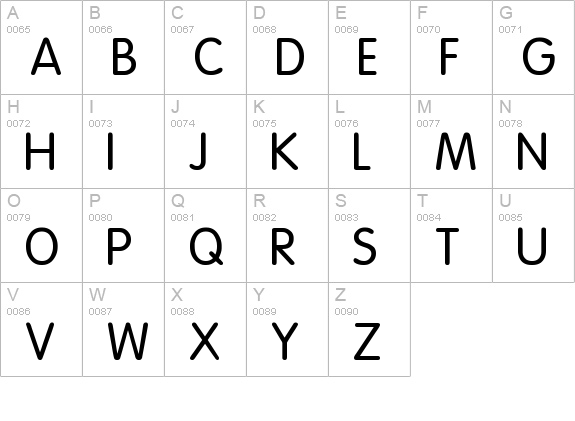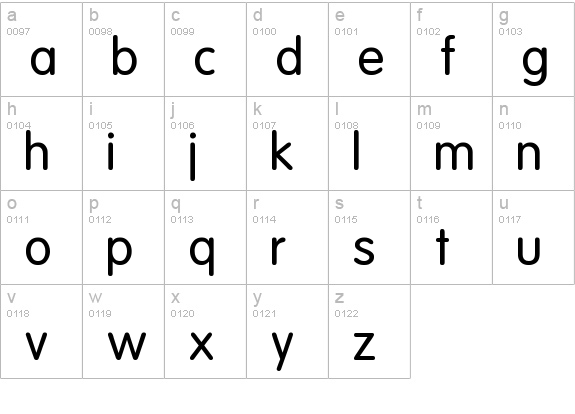
Cuida Font Details
Cuida font is a modern and elegant typeface that exudes sophistication and style. Its clean lines and graceful curves make it perfect for a wide range of design projects, from branding to editorial design. With its versatile and timeless design, Cuida font is sure to elevate any project it is used in. The best part? Cuida font is completely free to download at FontsMarket.com. Yes, you read that right - you can access this beautiful font at no cost at all. Whether you're a seasoned designer looking to add a new font to your collection or a beginner exploring typography for the first time, Cuida font is a fantastic choice for all your design needs. Download it now and let your creativity soar with this stunning typeface.